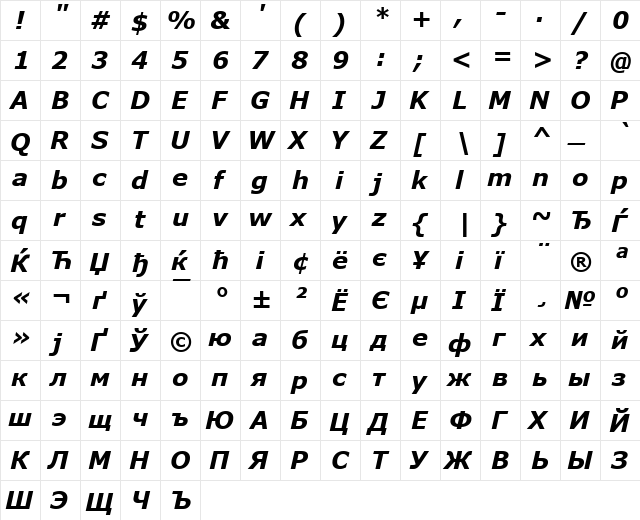
Verdana KOI8 Bold Italic
Design Context for Verdana KOI8 Typeface
Verdana KOI8 offers clean, dependable letterforms without strong stylistic allegiance, making it a practical choice for designers who need flexibility. The slanted form adds forward momentum and visual energy. Its bold stroke weight gives it real presence on the page.